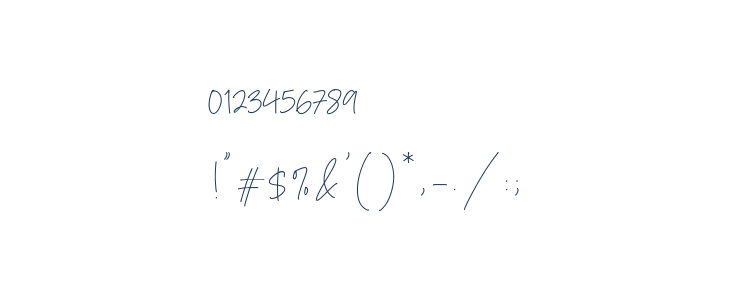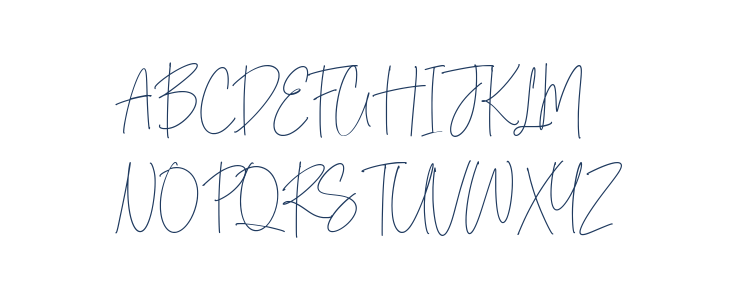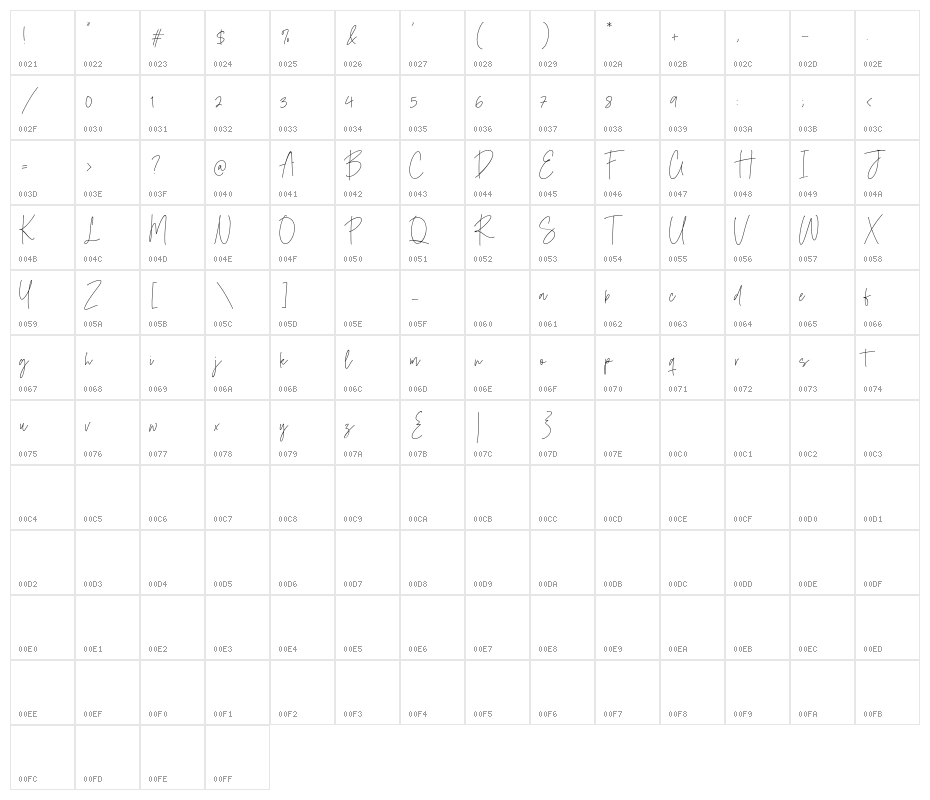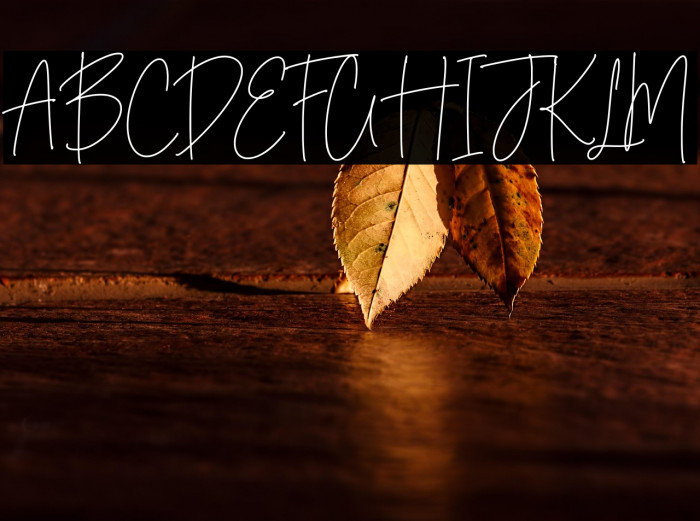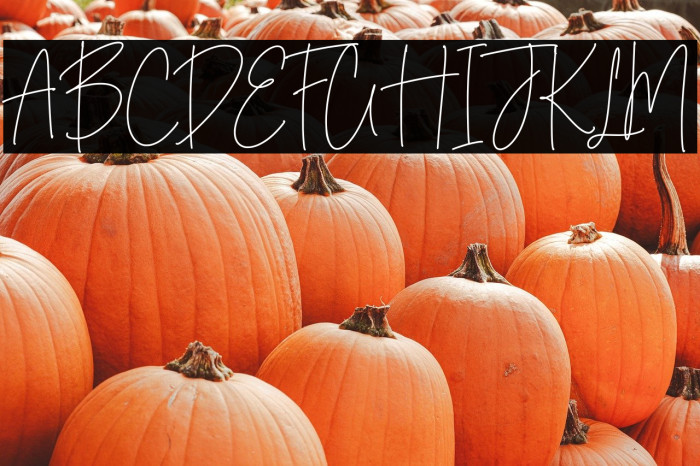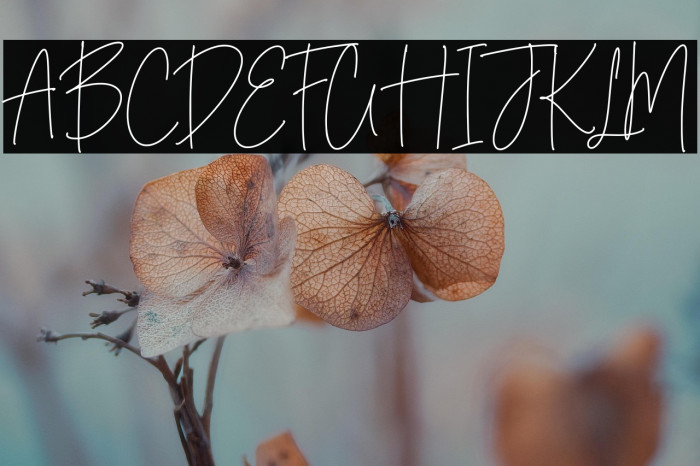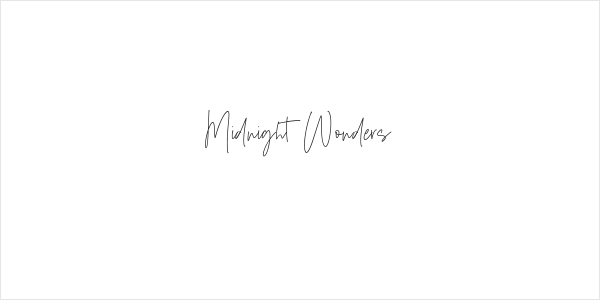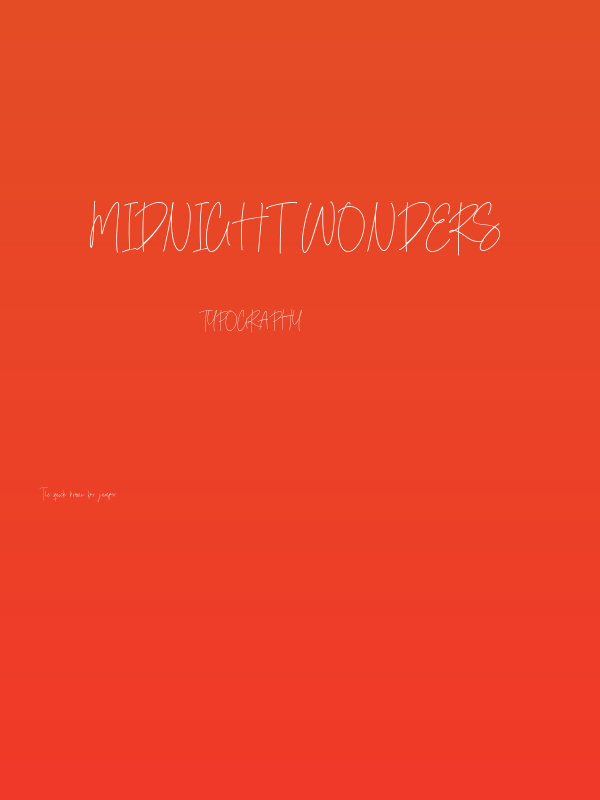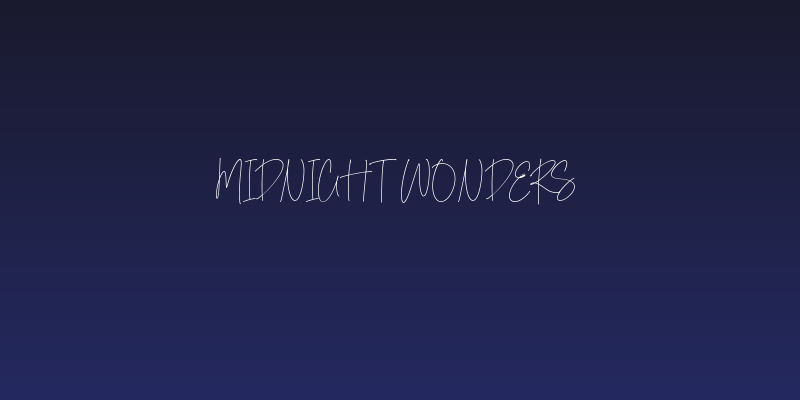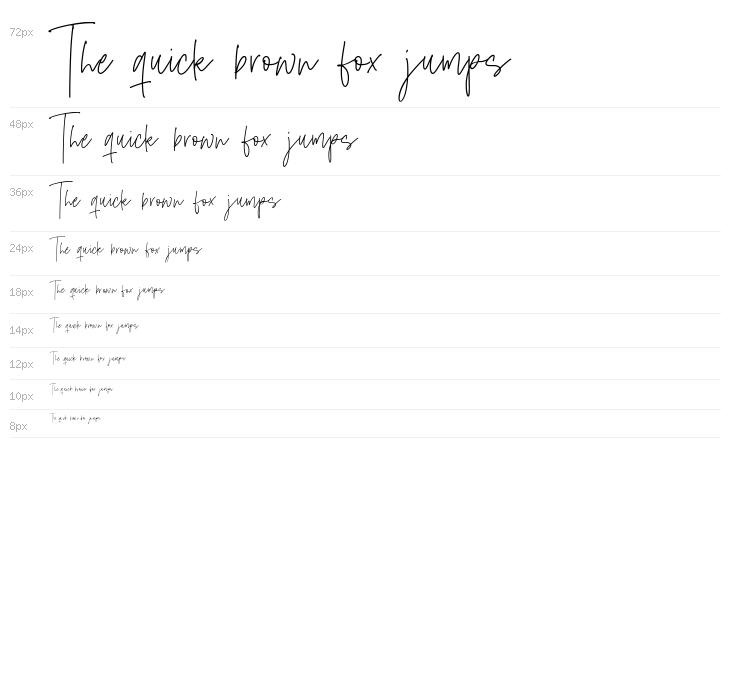
Midnight Wonders Font
Midnight Wonders Description
A thin, free-flowing handwritten script with tall, narrow letterforms and natural, irregular strokes, evoking a casual and whimsical feel.
| Overall Style | Decorative, Casual, Whimsical |
| Use Case | Logos, Headlines, Invitations, Social media posts |
| Proposed Projects | Greeting cards, invitations, personal branding, social media graphics, quotes, creative posters. |